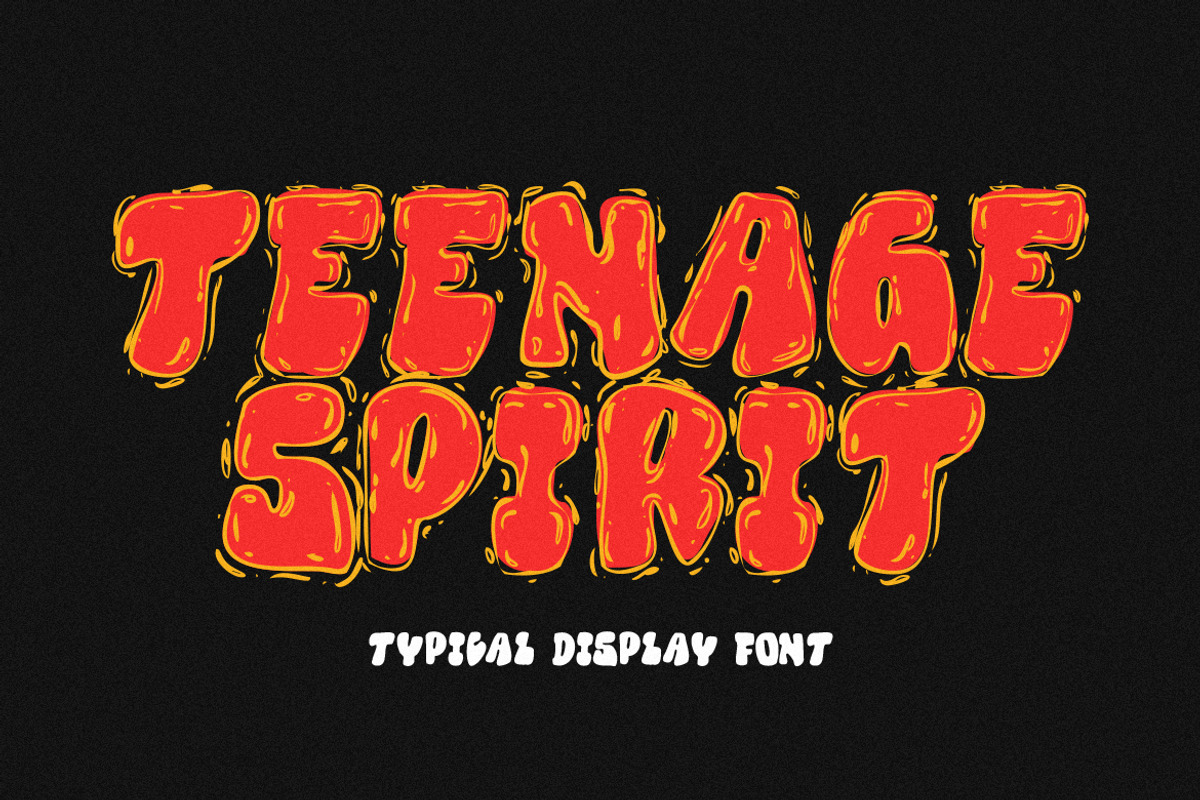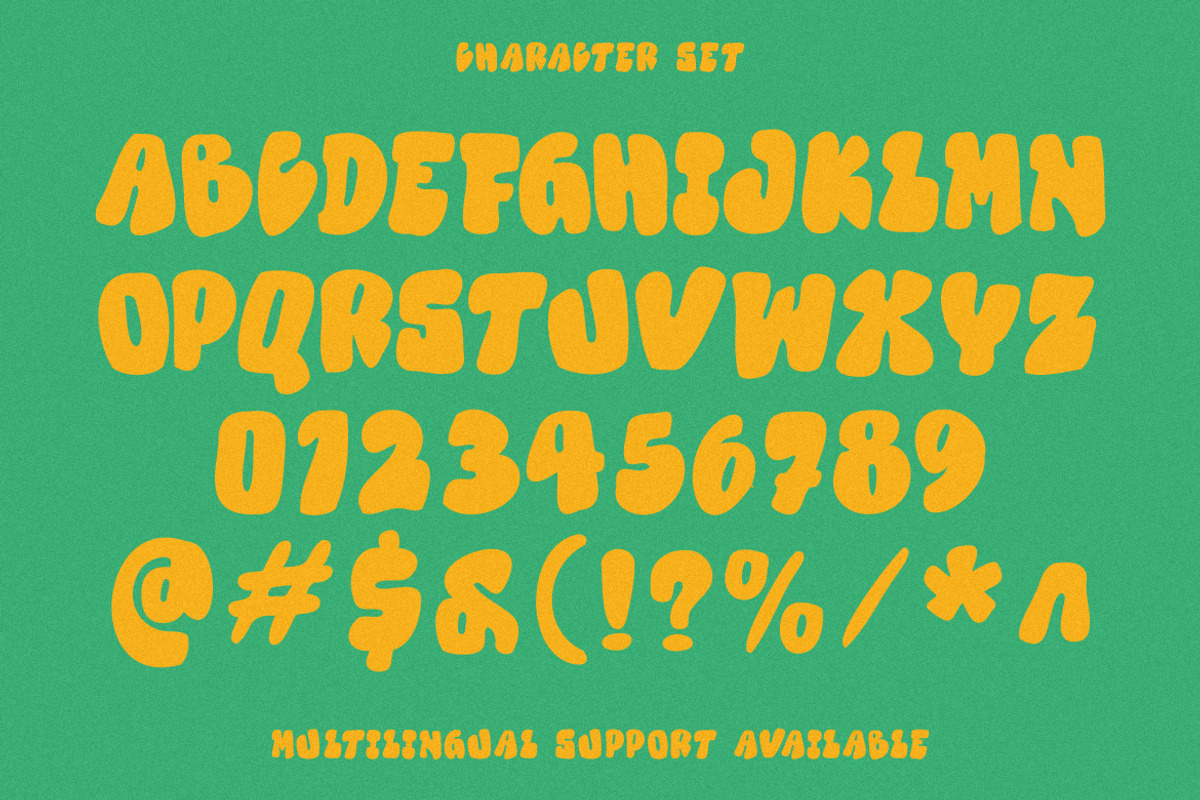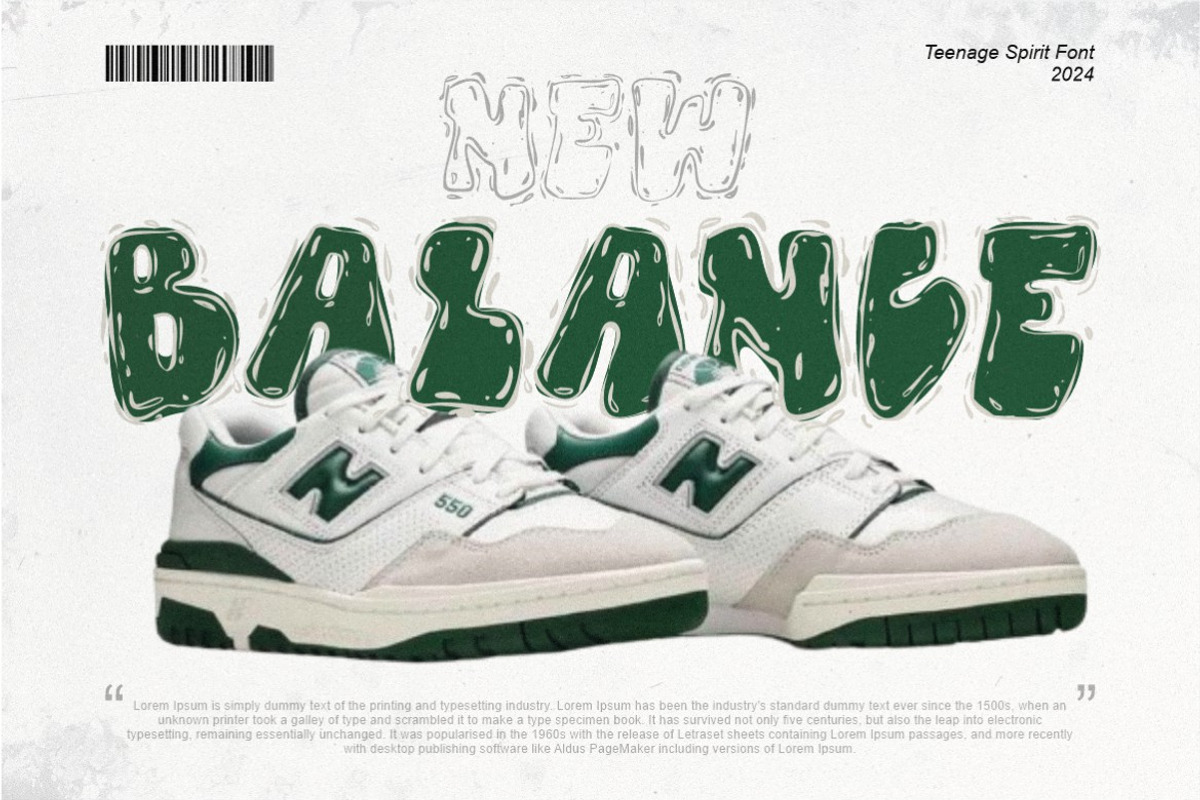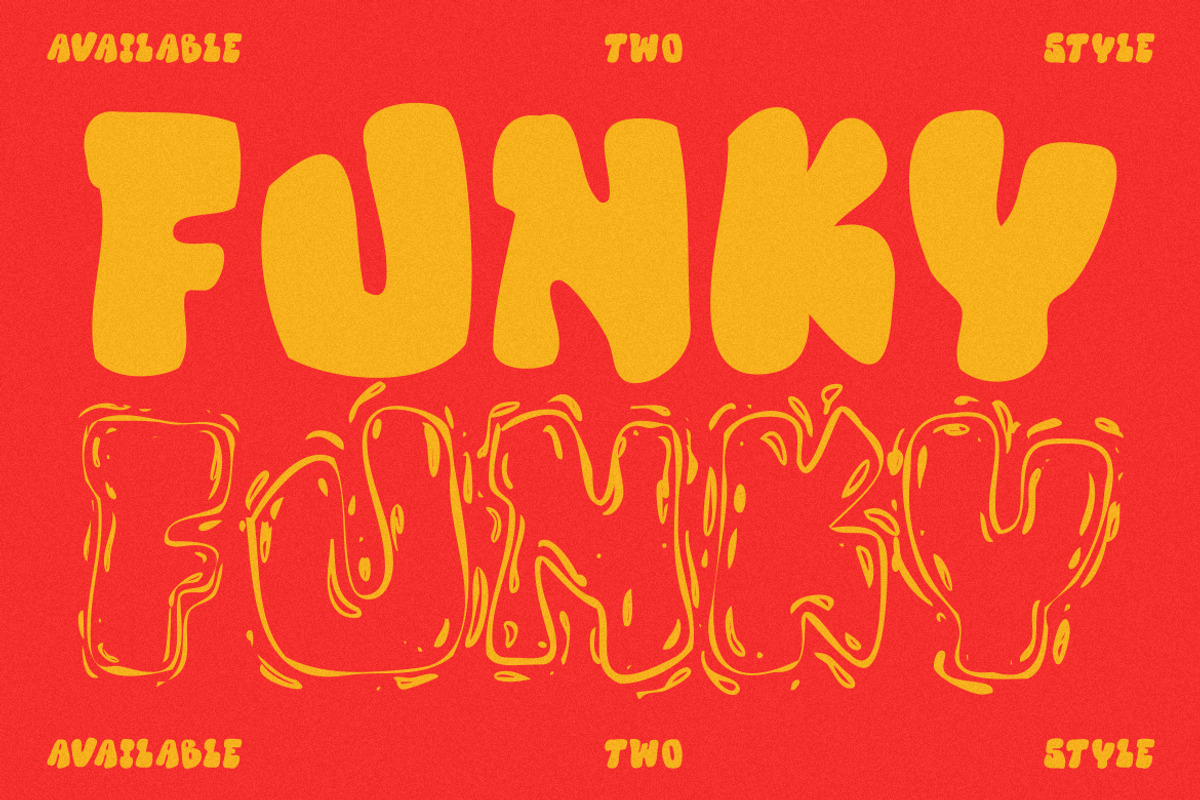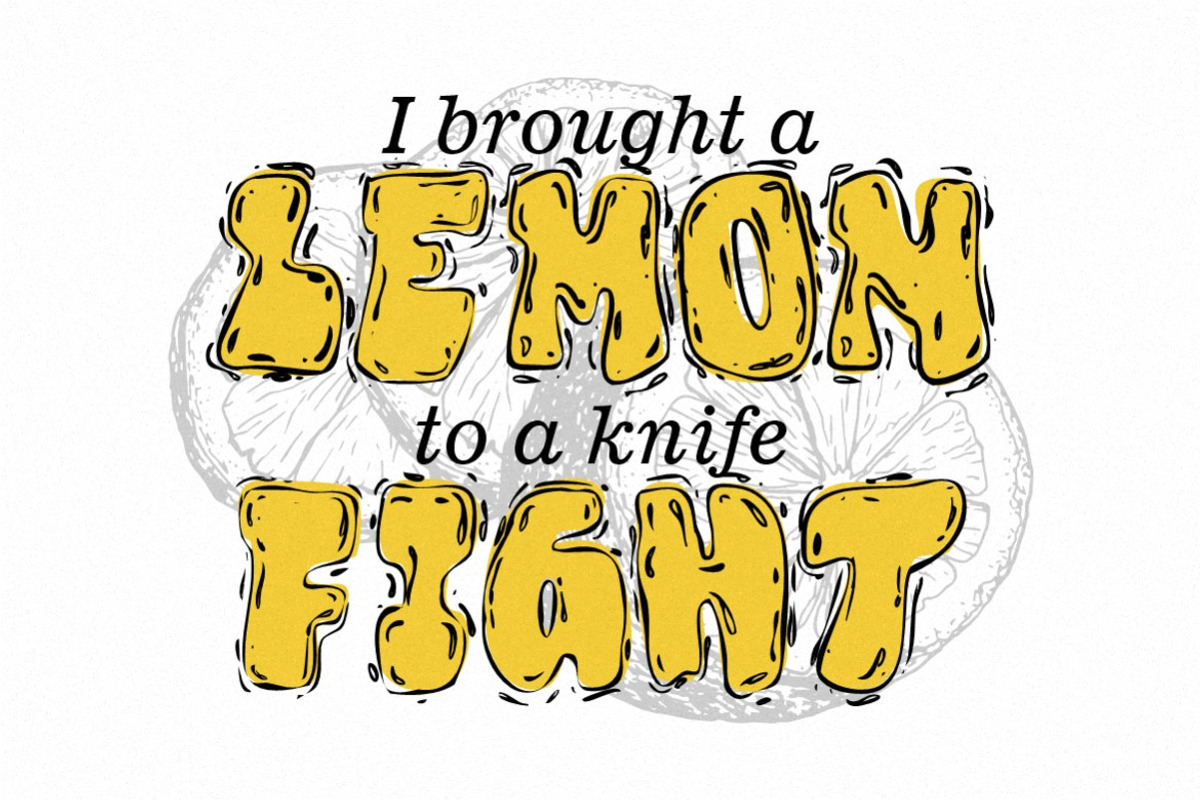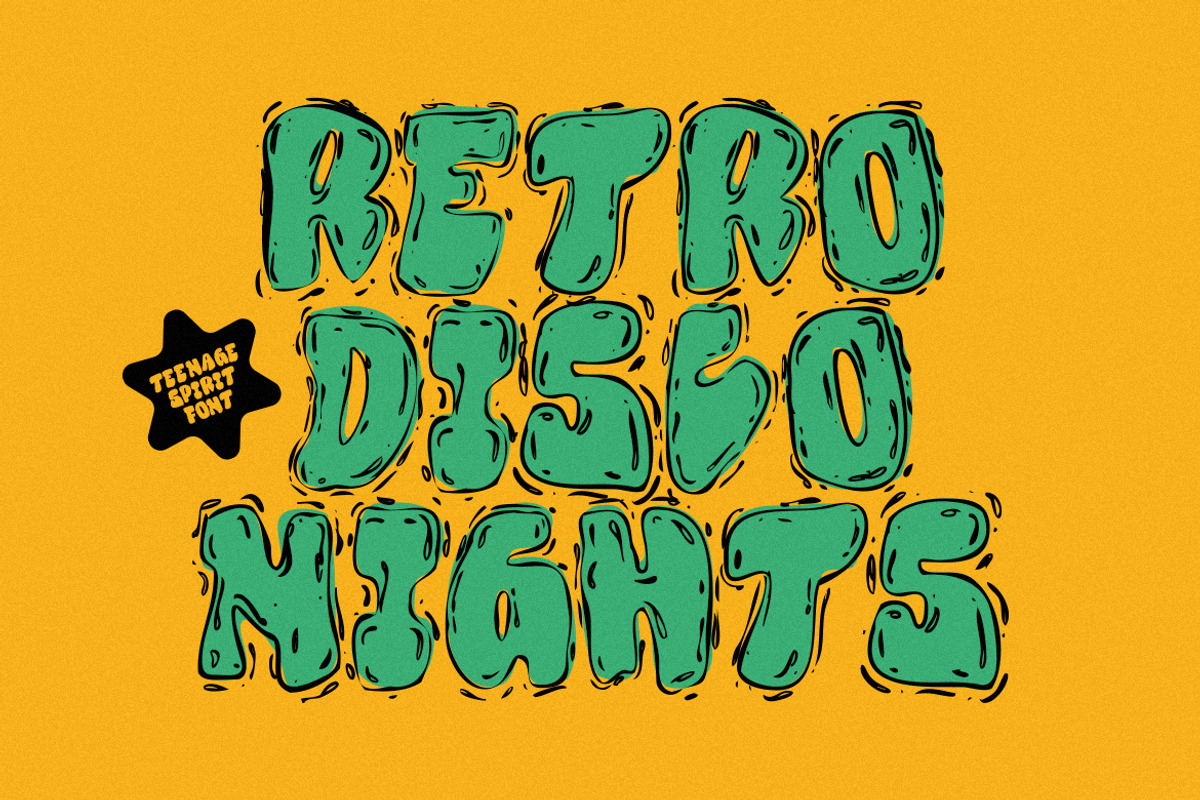
Teenage Spirit
Introducing our newest font creation!
Teenage Spirit is a bold and rebellious graffiti themed font that captures the essence of urban street art.
One of the standout features of Teenage Spirit is its playful "splash" layer, which adds a rough and rugged texture to the letterforms.
It is well-suited for projects that require a bold and rebellious vibe, such as streetwear, skateboard culture, and music youth culture designs. Whether you're creating designs for the digital or print media, this font makes a strong statement and taps directly into the energy and spirit of contemporary street art.
Available in two style!